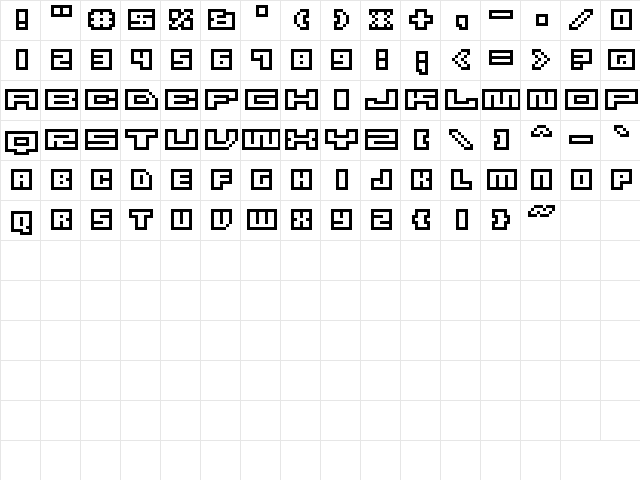
M47_FIRE WIRE Regular
Design Context for M47_FIRE WIRE
M47_FIRE WIRE is a composed and adaptable typeface that performs quietly and consistently across a wide range of design contexts.
Pro Tip: Use M47_FIRE WIRE in both headline and body roles to test its range before committing to a single application.